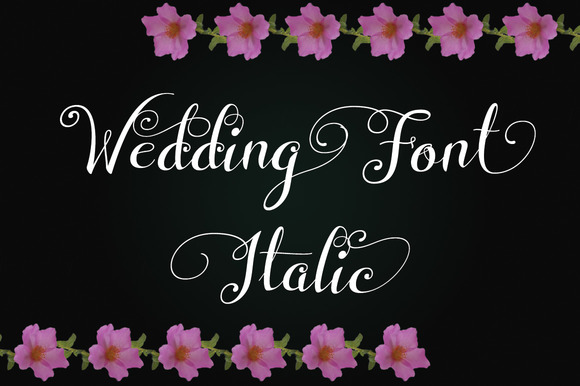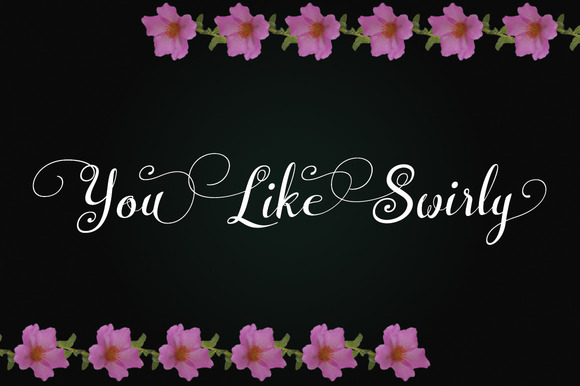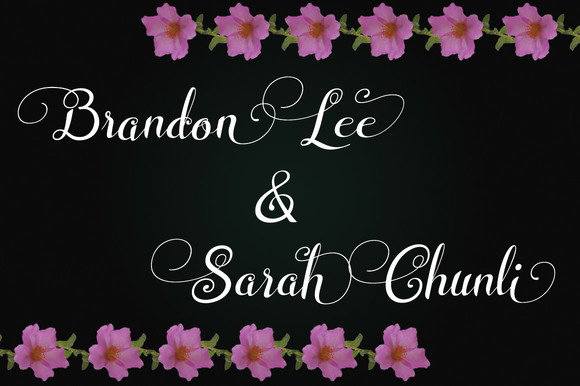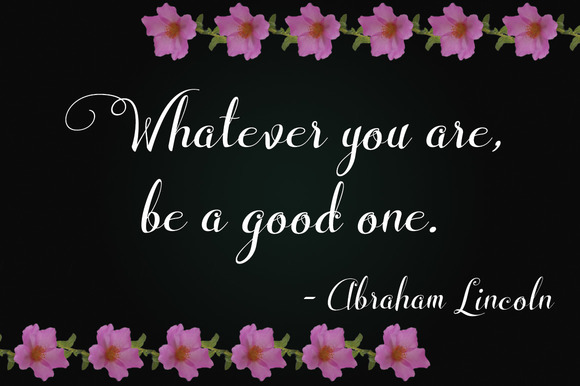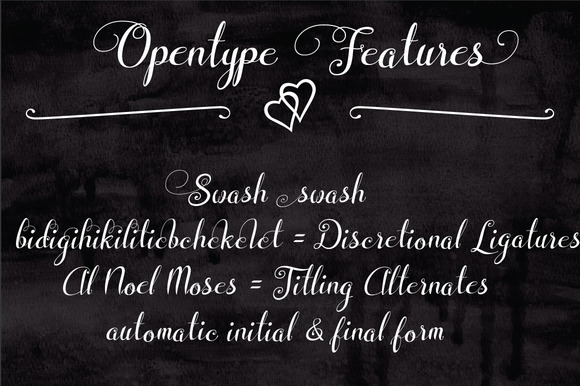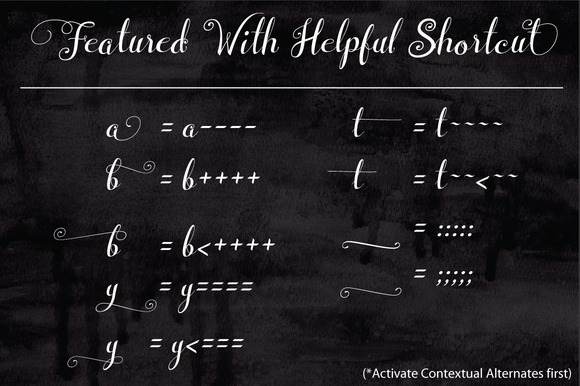
Wedding Font Italic Font
About Wedding Font Italic Font
The Wedding Font Italic is a stunning dynamic script font that features 780 glyphs.
The Wedding Font Italic is packed with swashes and swooshes and is PUA encoded.